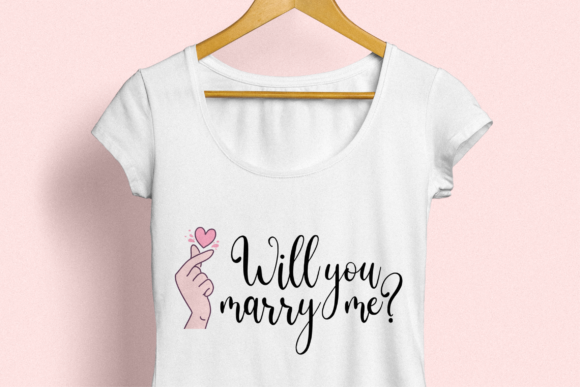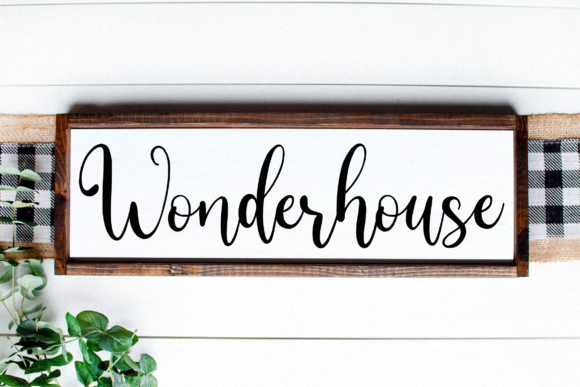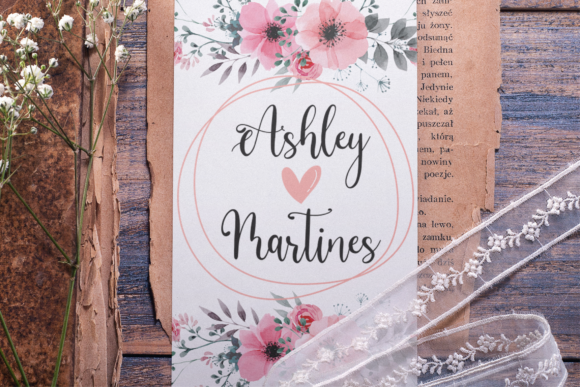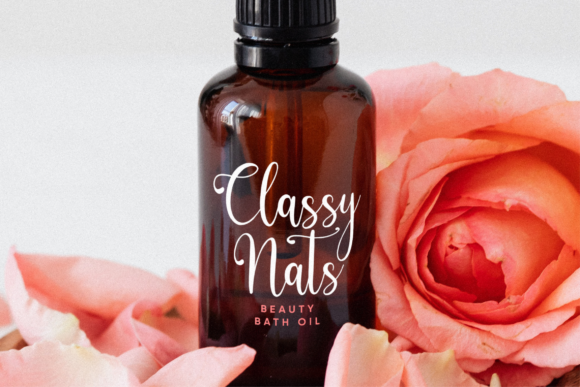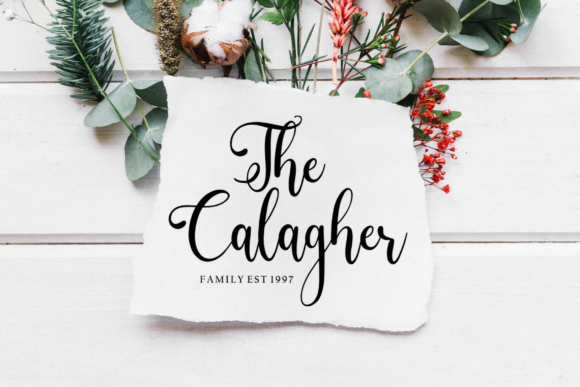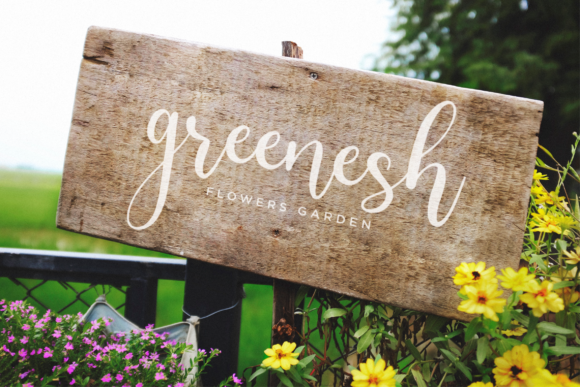
Introduction to Hellophiy Font
Have you ever found yourself staring at a blank page, desperate for the perfect font to bring your creative project to life? We’ve all been there – the pressure to deliver a design that stands out, yet remains true to our artistic vision. For designers, the hunt for the ideal font can be a tedious yet crucial part of the process. That’s where Hellophiy Font comes in – a delicate and chic handwritten font that’s sure to elevate your design game.
Whether you’re working on a product packaging design, branding project, or simply want to add a touch of elegance to your social media posts, Hellophiy Font is a valuable resource for designers. Its high-quality, transparent background makes it perfect for use above a background image or color, allowing your design to truly shine.
- High-quality design resource with a unique and creative style, perfect for artistic projects and designs.
- Supports a wide range of languages and characters, making it an ideal choice for global design projects.
- Perfect for use in creative projects, including logos, branding materials, and print designs.
One of the first things I noticed about Hellophiy Font was its modern and sleek aesthetic. The font is perfect for creating a clean and minimalistic look in any design project. The font also features a transparent background, making it easy to layer and combine with other design elements. ✨
- Unique and modern design
- High quality and crisp typography
However, I did encounter a few limitations with Hellophiy Font. The font only comes in a few weights and styles, which may limit its versatility in certain design projects. Additionally, the font may not be suitable for projects that require a more traditional or classic look. ⚠️
The Hellophiy Font is perfect for creative projects such as logos, business cards, and social media graphics. It’s also great for use in presentations and documents where a clean and modern font is desired.